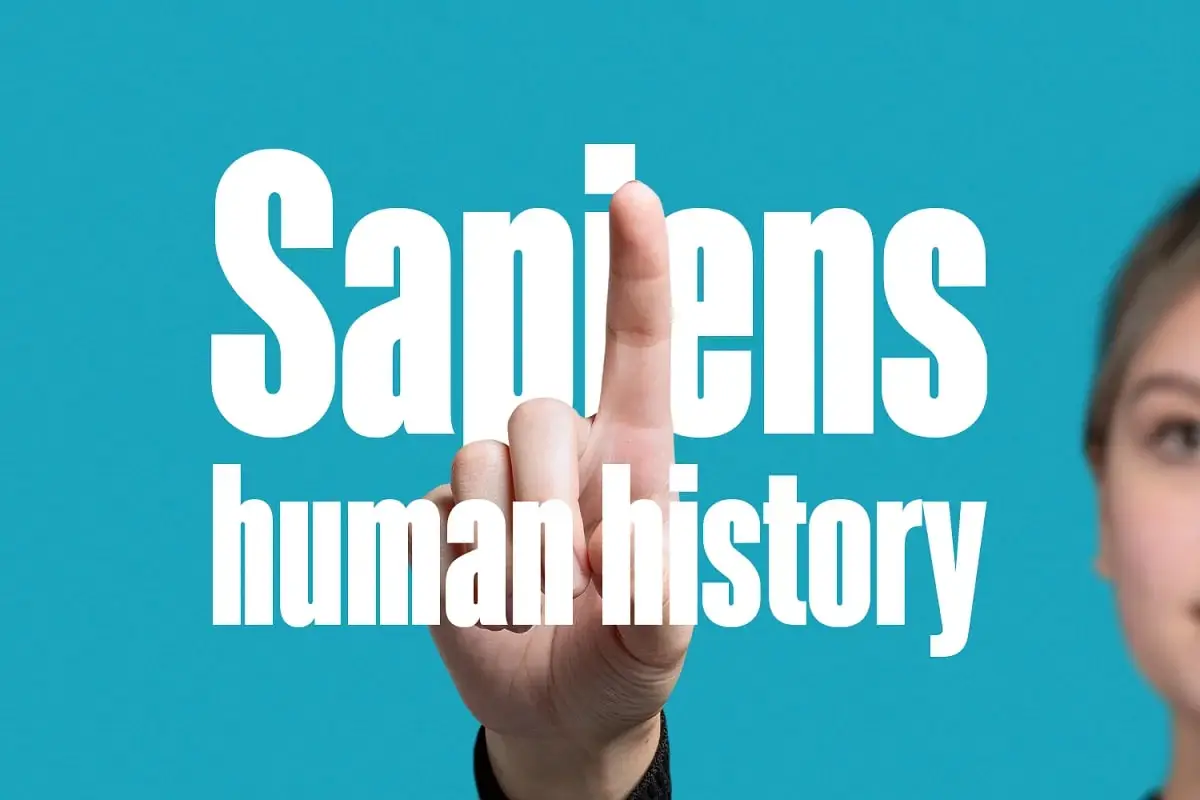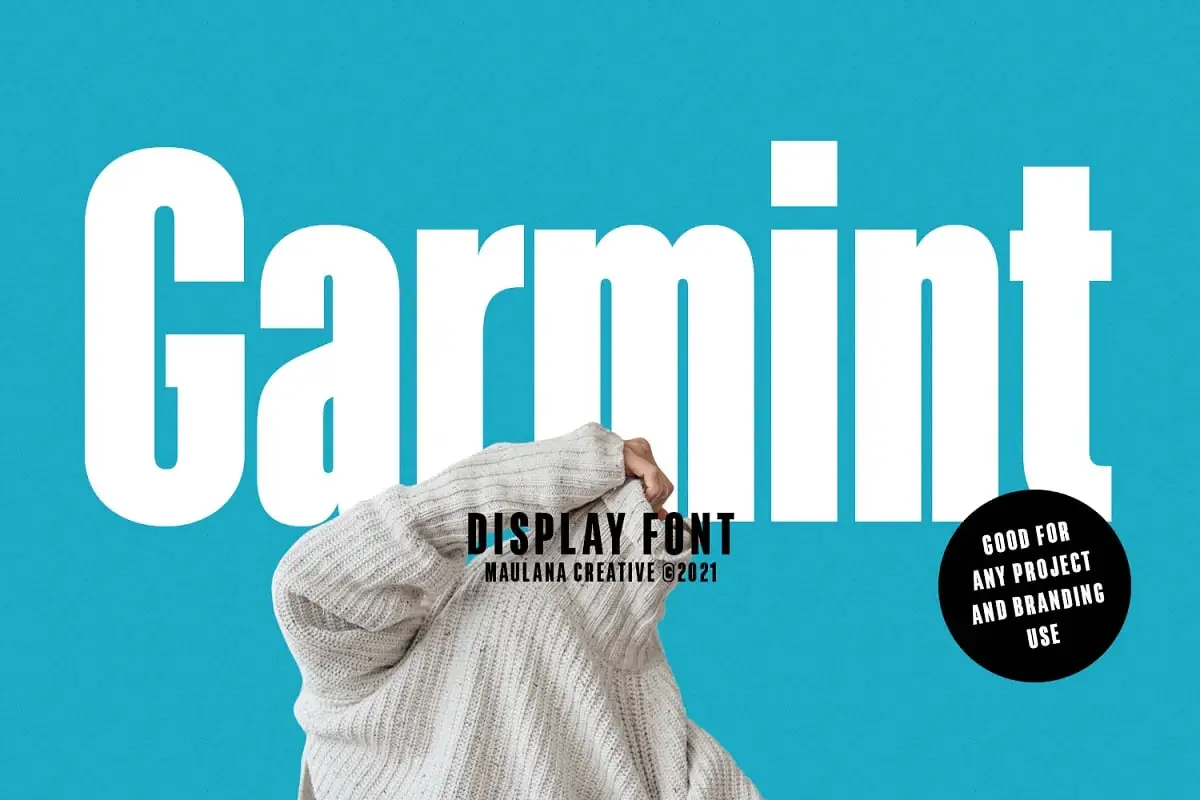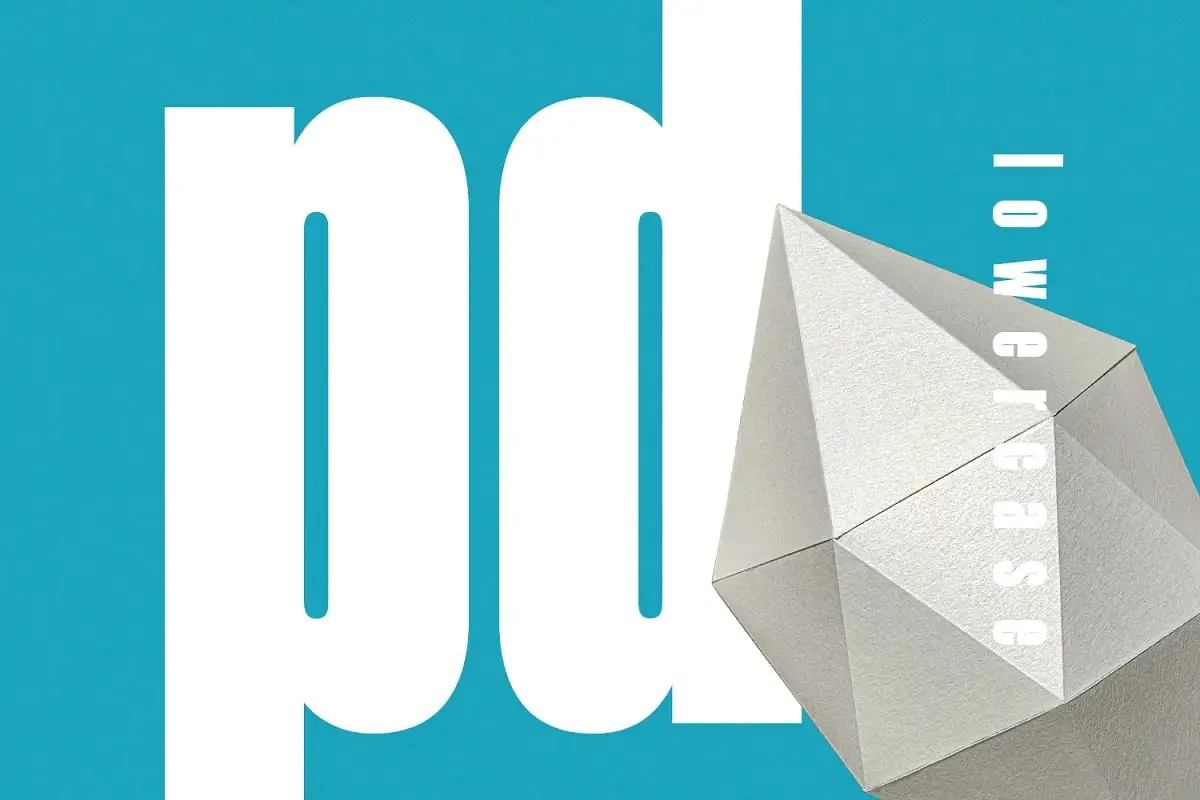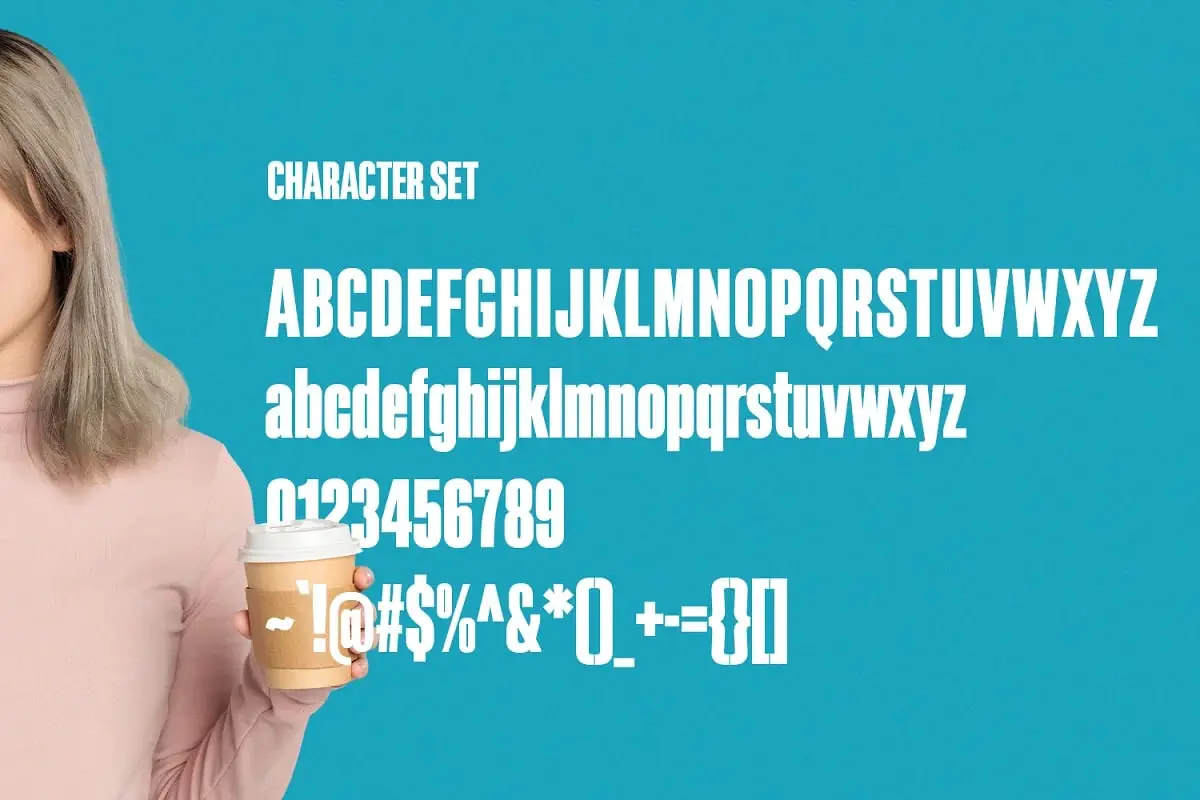
Garmint Sans Serif Display Font
The Garmint Sans Serif Display Font is a modern and versatile typeface designed for a variety of applications. With its clean lines and contemporary aesthetic, this font is perfect for branding, logos, web design, and print materials. Whether you’re creating eye-catching headlines or elegant body text, Garmint offers a professional look that stands out.
• Style: Sans Serif
• Ideal for logos and branding materials
• Great for web and digital projects
• Perfect for print applications like posters and flyers